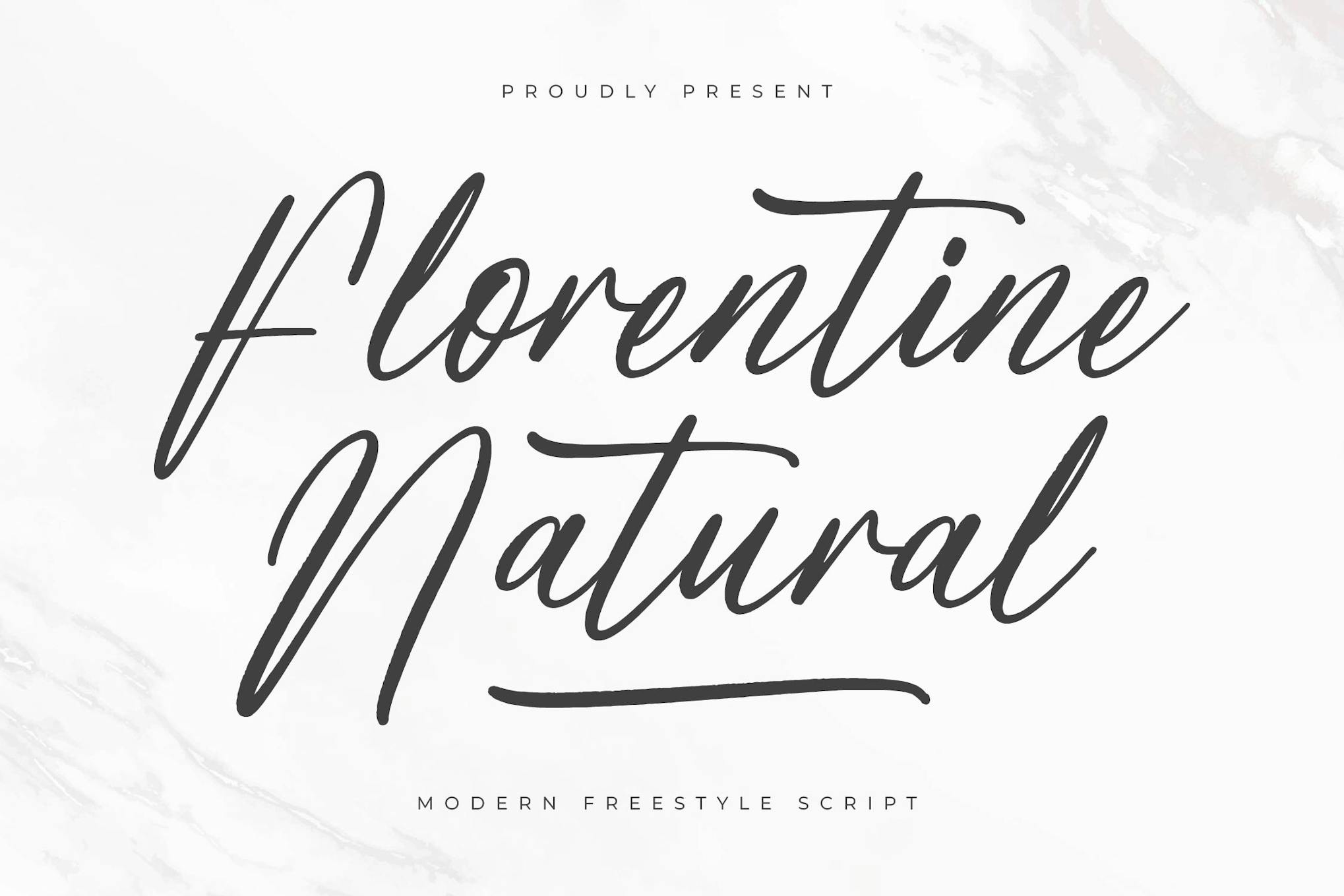
Florentine Natural Modern Freestyle Script Font
The Florentine Natural Modern Freestyle Script Font is perfect for organic beauty brands, natural lifestyle blogs, eco-friendly product packaging, botanical wedding invitations, artisan craft businesses, wellness spa branding, sustainable fashion labels, nature-inspired social media graphics, organic restaurant menus, and contemporary lifestyle communications.
What makes the Florentine Natural Modern Freestyle Script Font so exciting is its perfect harmony of organic flow with contemporary design sensibilities that creates an authentic connection to nature while maintaining modern sophistication. This captivating typeface features natural handwriting rhythms, organic letter variations, and freestyle character movements that perfectly capture the essence of modern natural living and contemporary organic aesthetics. The font's natural personality and freestyle elegance make it an exceptional choice for brands seeking to communicate authenticity, sustainability, and genuine connection to nature with fresh contemporary appeal.
The Florentine Natural Modern Freestyle Script Font family includes natural alternates and freestyle variations, featuring organic character options, flowing ligatures, and contemporary connecting elements. Each variation maintains the signature natural freestyle appeal while offering different levels of organic expression and modern sophistication, giving designers extensive creative possibilities for crafting authentic natural communications and contemporary lifestyle expressions.
This exceptional Florentine Natural Modern Freestyle Script Font Free Download represents the ideal natural typography choice for designers who want to infuse their projects with authentic organic beauty and contemporary natural aesthetics. Whether you're developing eco-conscious brand identities, creating wellness lifestyle content, or designing sustainable product communications, this versatile natural script delivers compelling results that resonate with audiences seeking genuine environmental connection and modern natural living.
The organic handwriting characteristics of Florentine Natural Modern Freestyle Script Font showcase masterful natural script design, with each letter carefully crafted to flow organically while maintaining contemporary proportions and modern aesthetic appeal. The font's comprehensive character set includes uppercase and lowercase letters, numerals, natural punctuation, and organic symbols, ensuring complete functionality for diverse natural projects and international eco-friendly applications.
Expertly designed for both digital and print natural applications, this beautiful font maintains its organic script character and natural elegance across various sizes and formats. From large-scale eco-branding signage to delicate natural product packaging, Florentine Natural Modern Freestyle Script Font adapts beautifully to any natural design challenge while preserving its distinctive organic personality and contemporary natural charm.